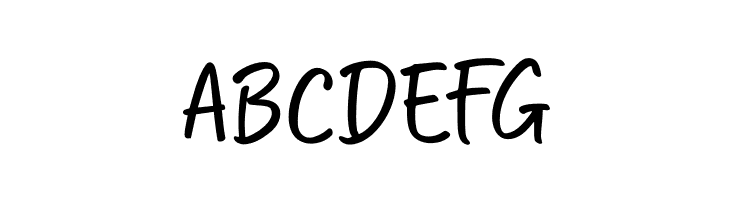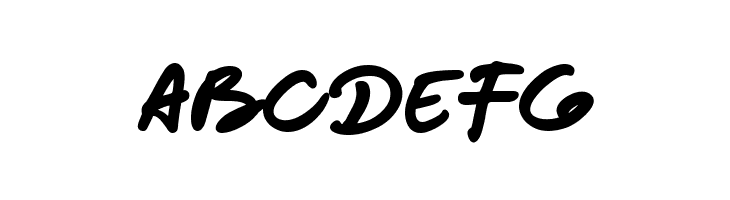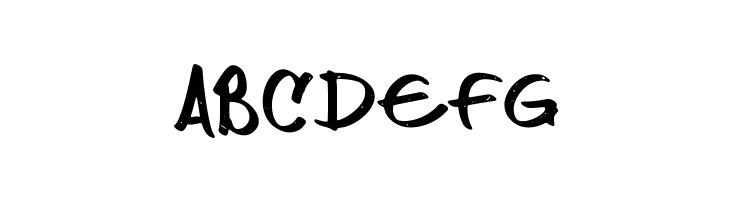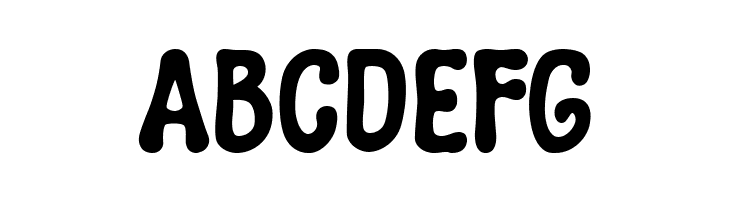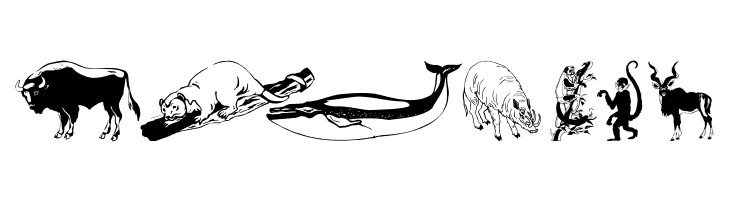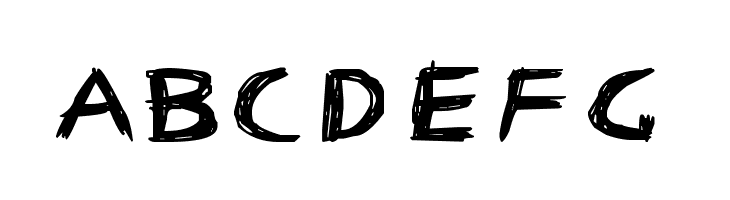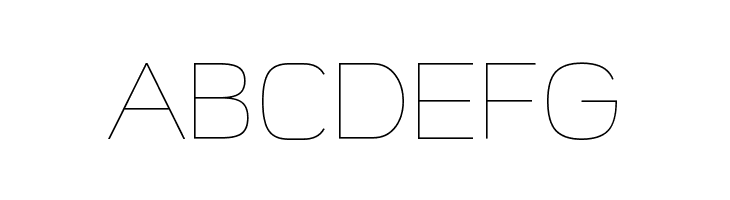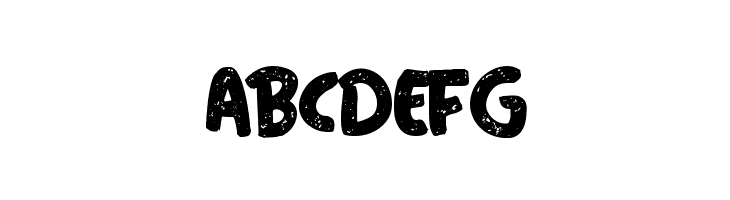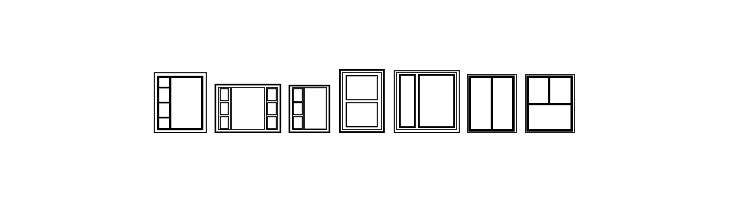
A sleek, ultra-thin font with a modern, geometric design.
A bold, expressive script font with fluid, connected letterforms.
A bold, textured font with a playful, hand-drawn style.
Animal illustration font with each glyph as a unique wild animal.
A bold, expressive handwritten font with a playful, artistic style.
A playful, handwritten font with a lively and informal style.
A playful, bold, and hand-drawn font with rounded edges.
A decorative dingbat font showcasing various window designs.
An ornate and decorative font with intricate swirls and flourishes.